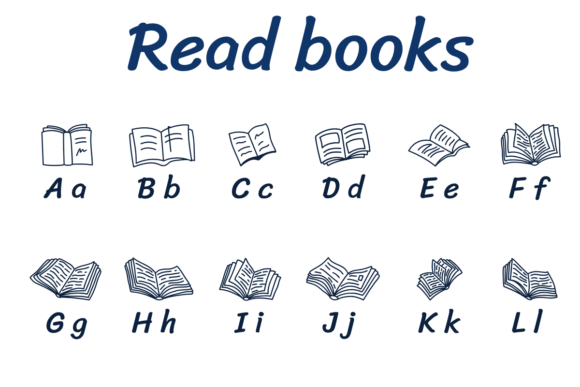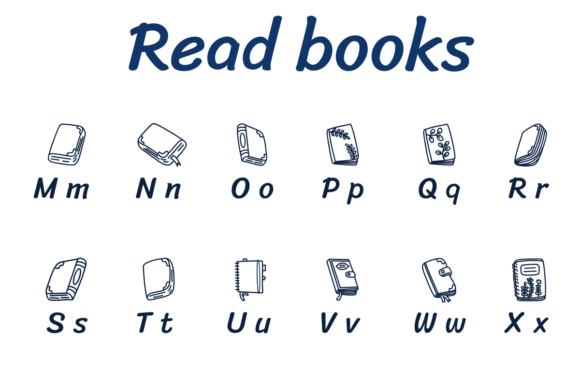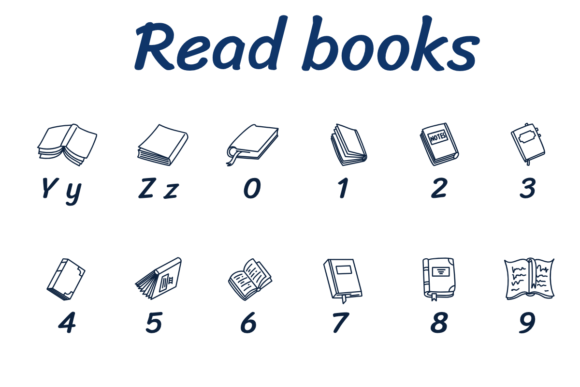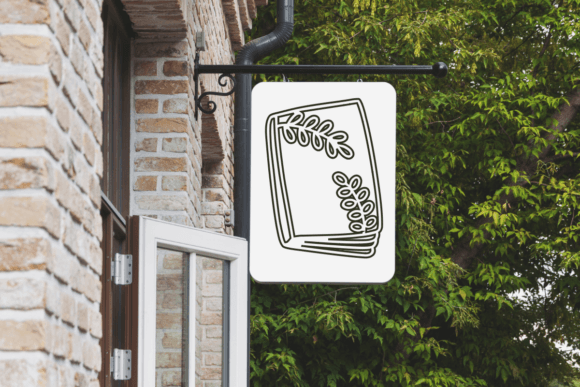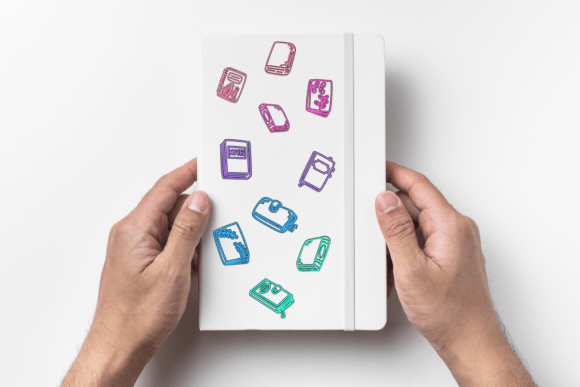
Introduction to Read Books Font
Read Books is a fun and unique dingbat font where each character is a small drawing of a book.
Instead of letters and numbers, you see cute book icons, making it perfect for adding a bookish touch to your projects .
Key Features of Read Books Font